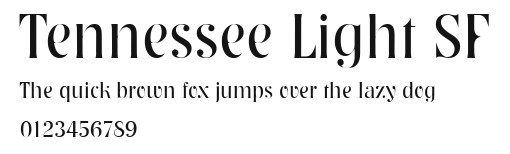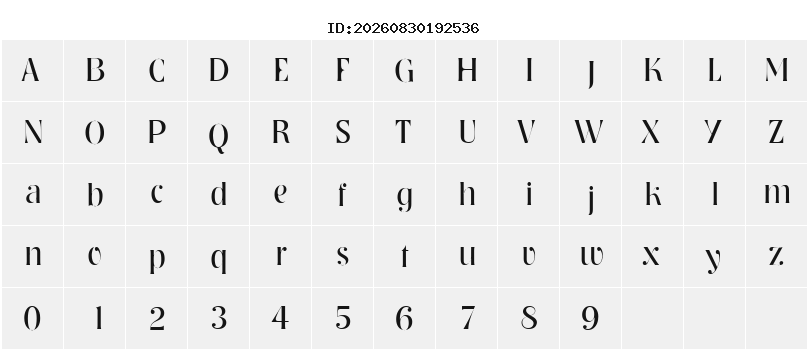
About Tennessee Light SF.ttf
Tennessee Light SF.ttf is a modern, elegant sans-serif font designed for ultimate readability and visual harmony. Perfect for branding, headlines, web design, and print materials.